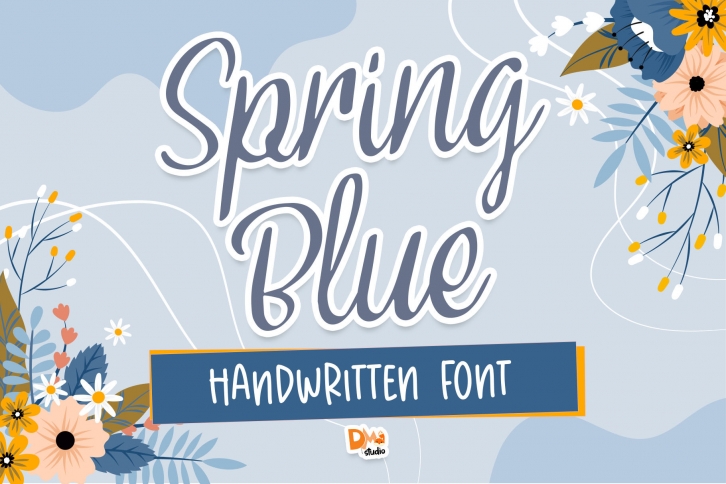
Spring Blue is a delicate and flowing script font. It is defined by a natural flow and simplicity, and as a result, it will match a wide range of creations.